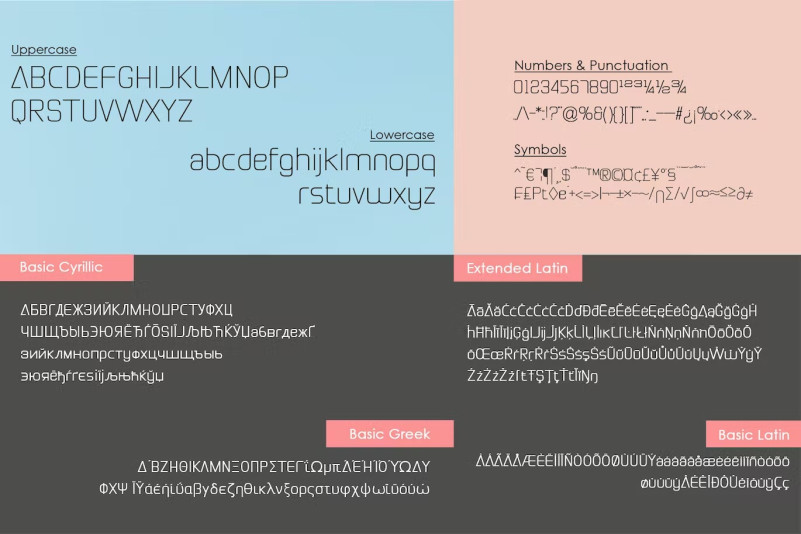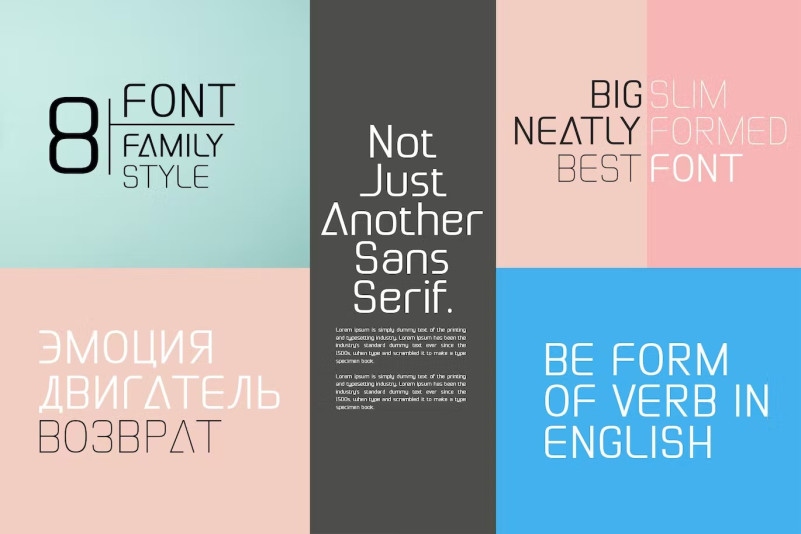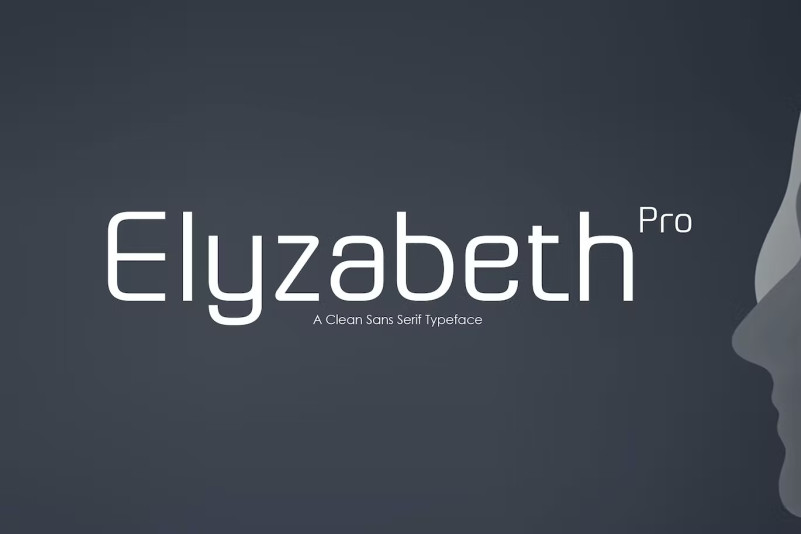
Elyzabeth Pro Font
Elyzabeth Pro Font is a very elegant and practical sans serif font family, whose creation has been precise. Clean, elegant, soft, familiar and easy to read fonts that are not boring to the reader.
This type of font is ideal for writing very large quantities, whether it is notes on daily activities, magazines, newspapers, logos, posters, product compositions, descriptions of products for sale or indications on any product composition requiring writing shadows.